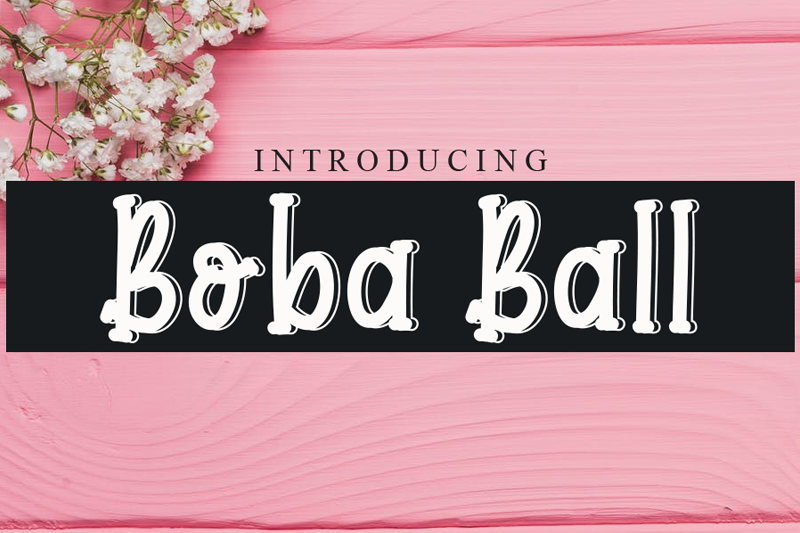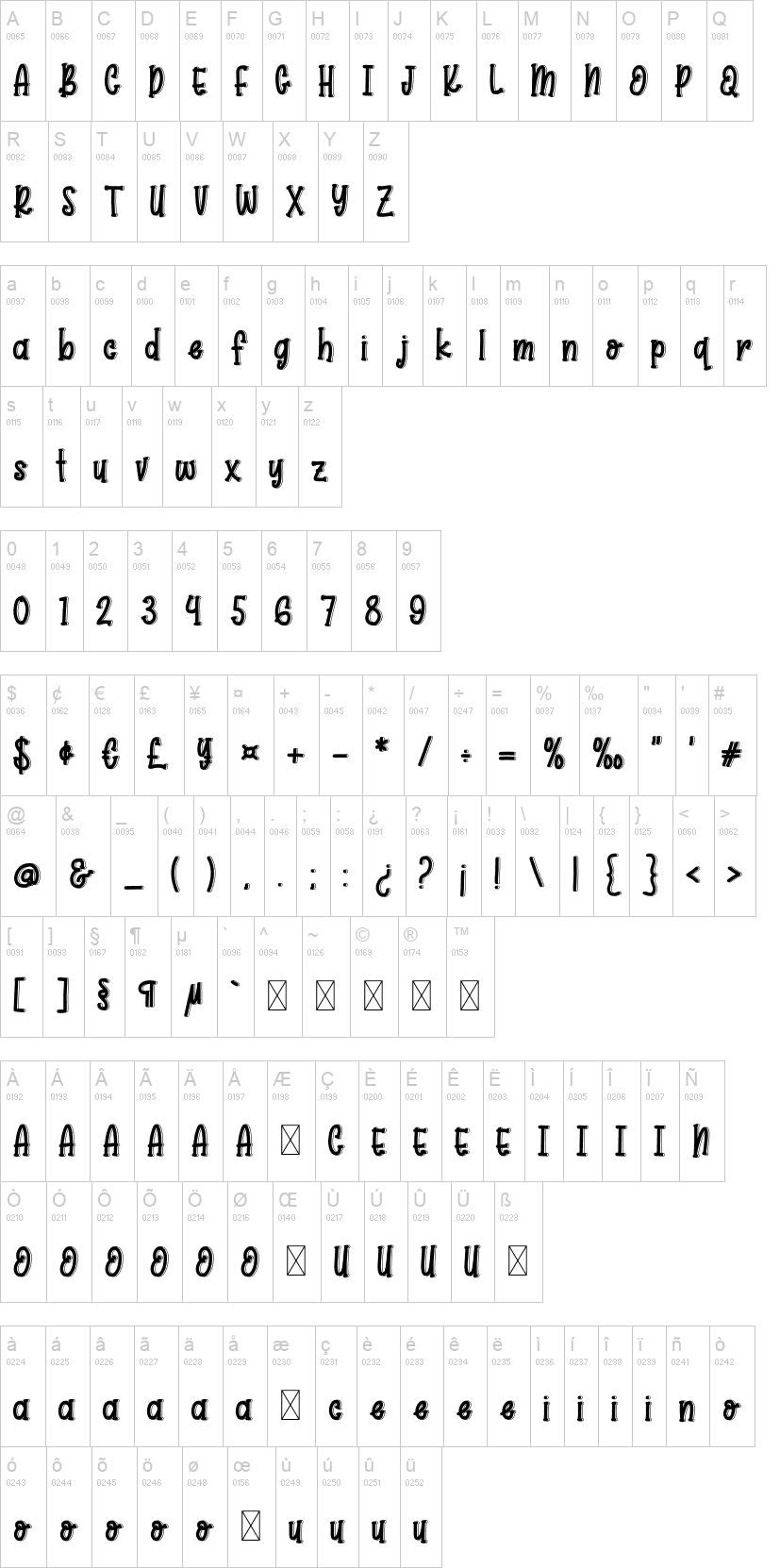
This is a very talented product for you to use,
Latest letters that can be used for various products, invitations, wall hangings, weddings, and more.